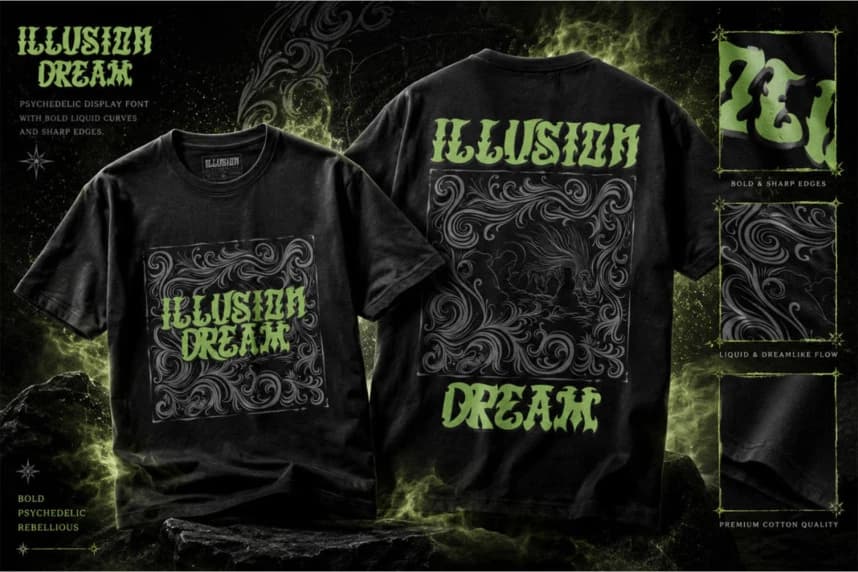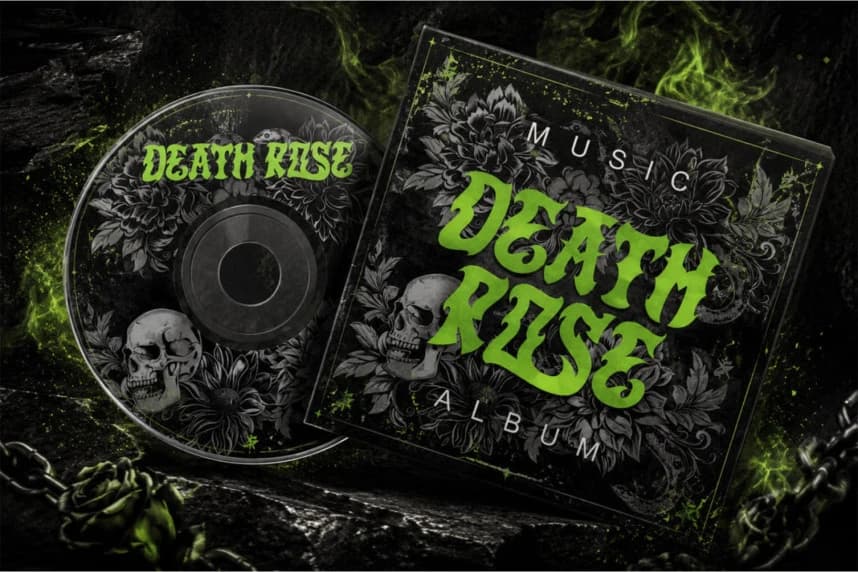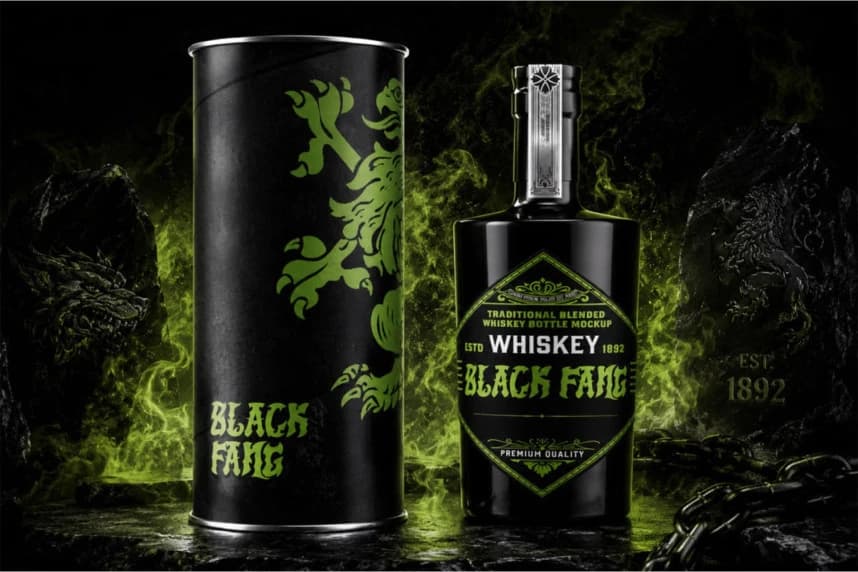
Kelmora Font
Kelmora Font is a bold psychedelic blackletter display font crafted with a strong gothic structure and expressive organic curves, delivering a distinctive visual identity that feels powerful, artistic, and contemporary. Inspired by underground typography